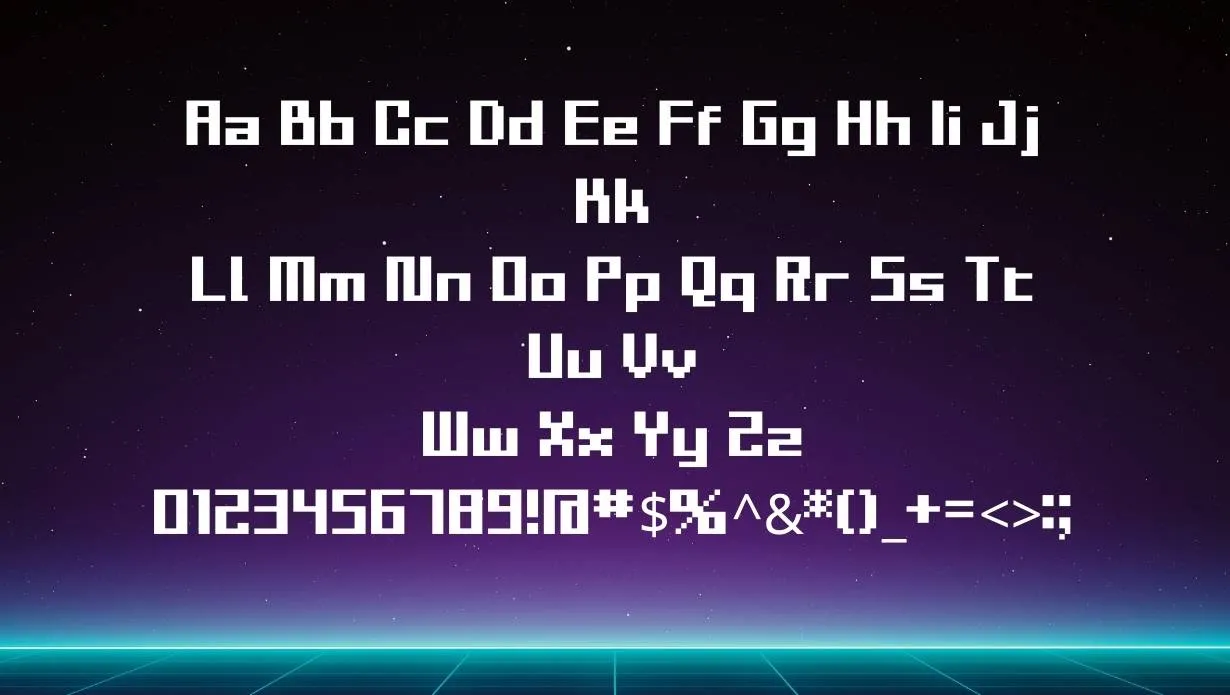
Introducing BM Sly Font, it is a retro texture that was created by Bitmap Mania along with an open font license for everyone.
BM Sly Font Family
| Designer | Bitmap Mania |
| Style | Retro |